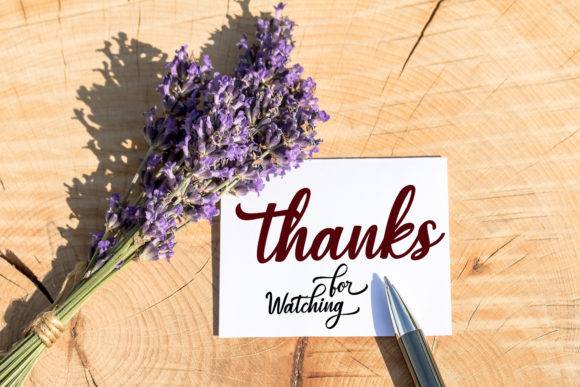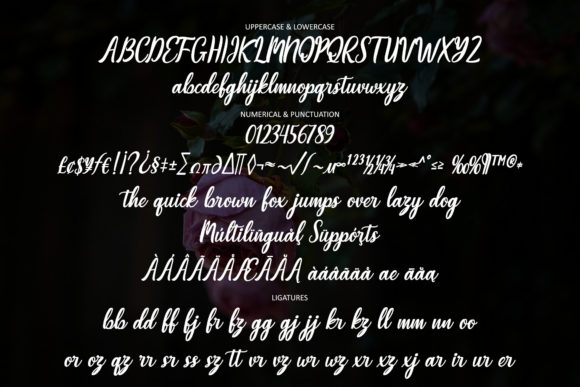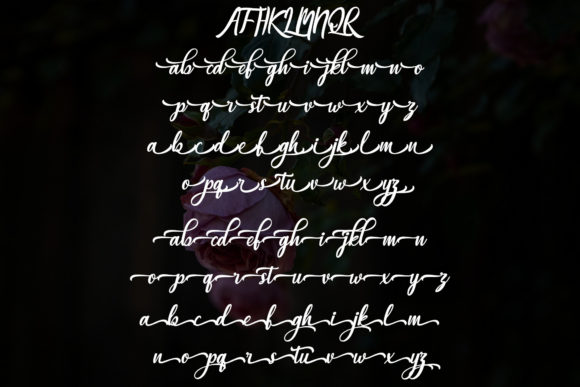
Introduction to Beauty Rhapsody Font
Beauty Rhapsody is an exquisite handwritten font, masterfully designed to become a true favorite.
It maintains its classy calligraphic influences while feeling contemporary and fresh Beauty Rhapsody is PUA encoded which means you can access all of the glyphs and swashes with ease.